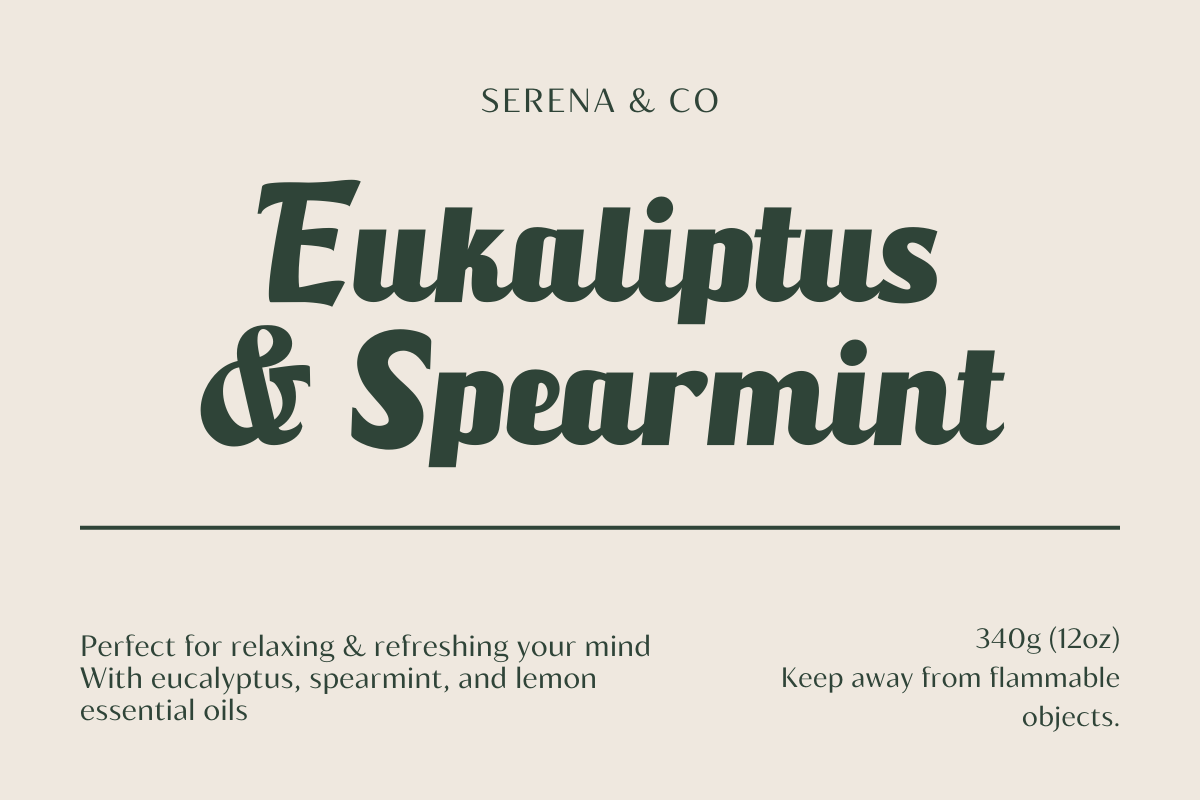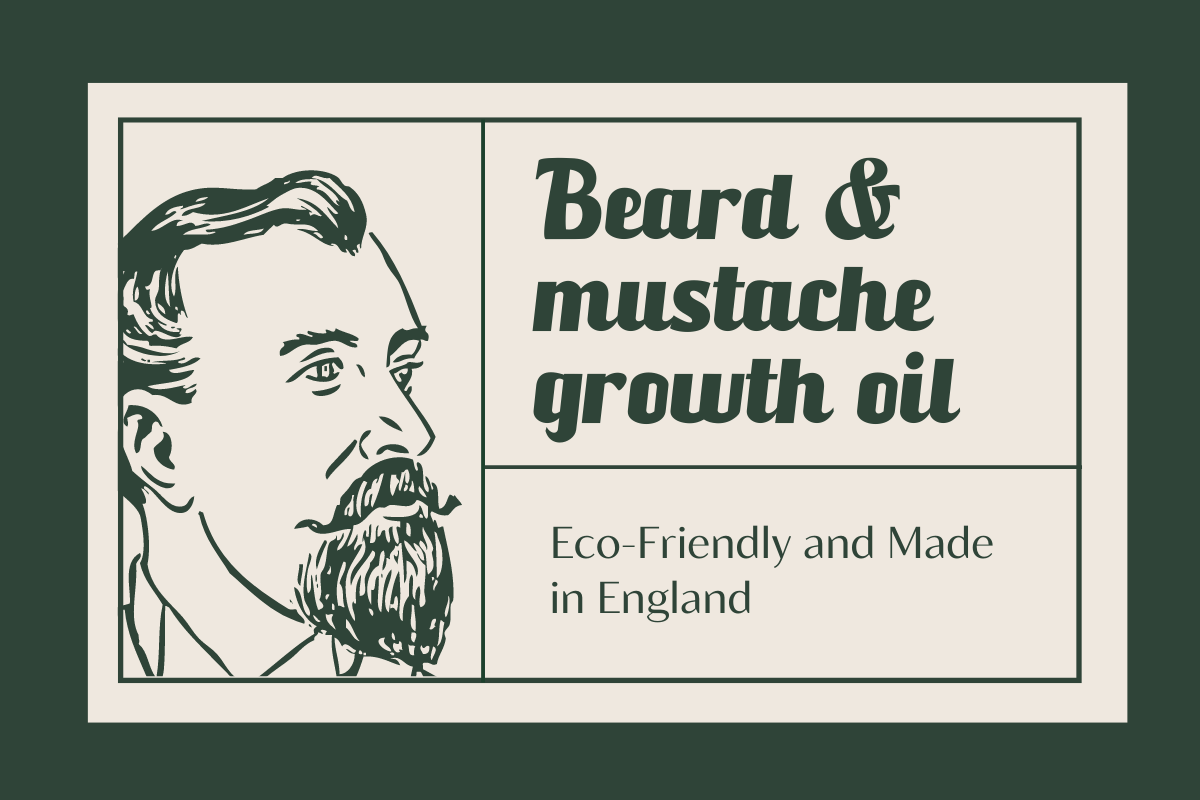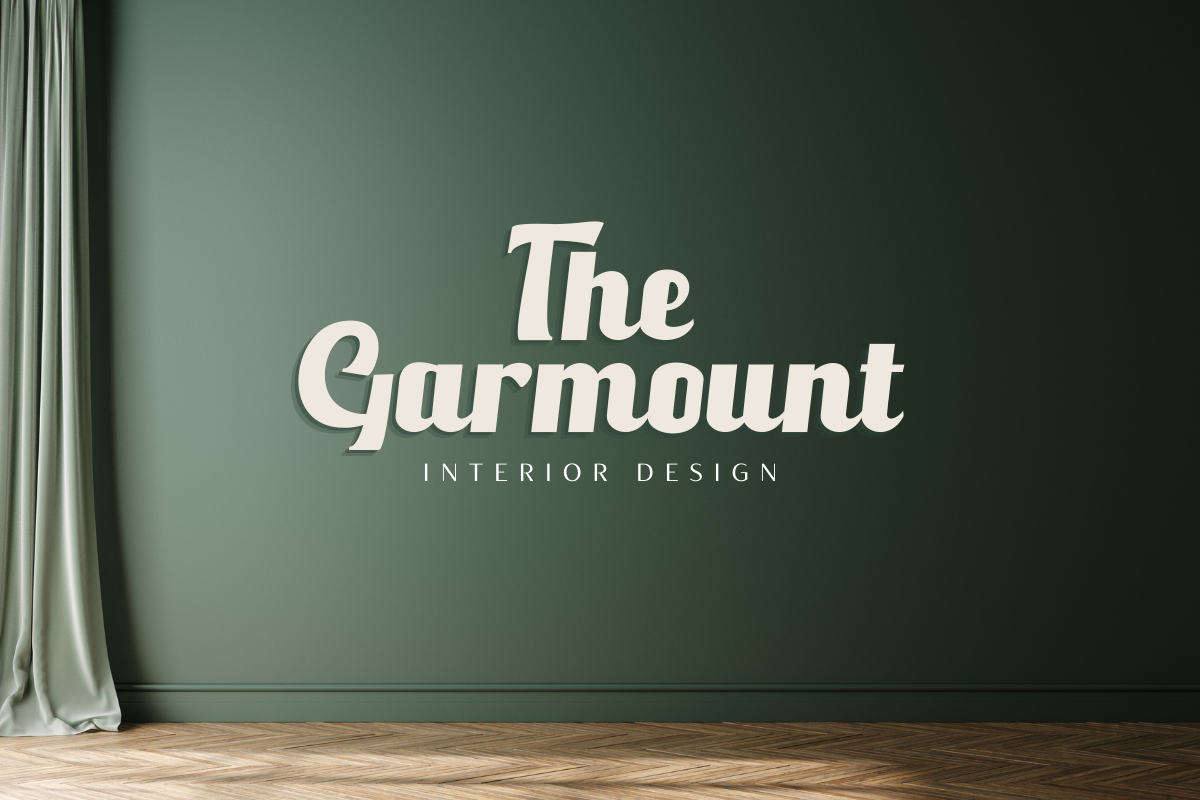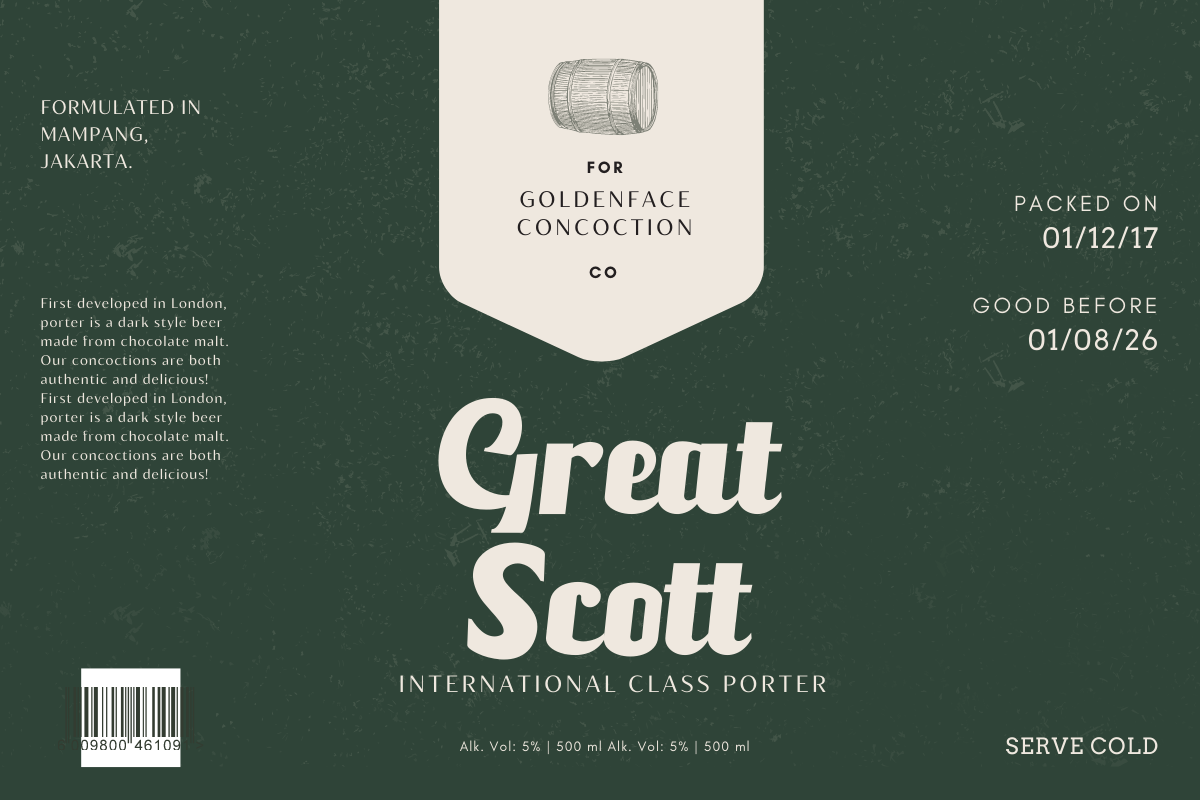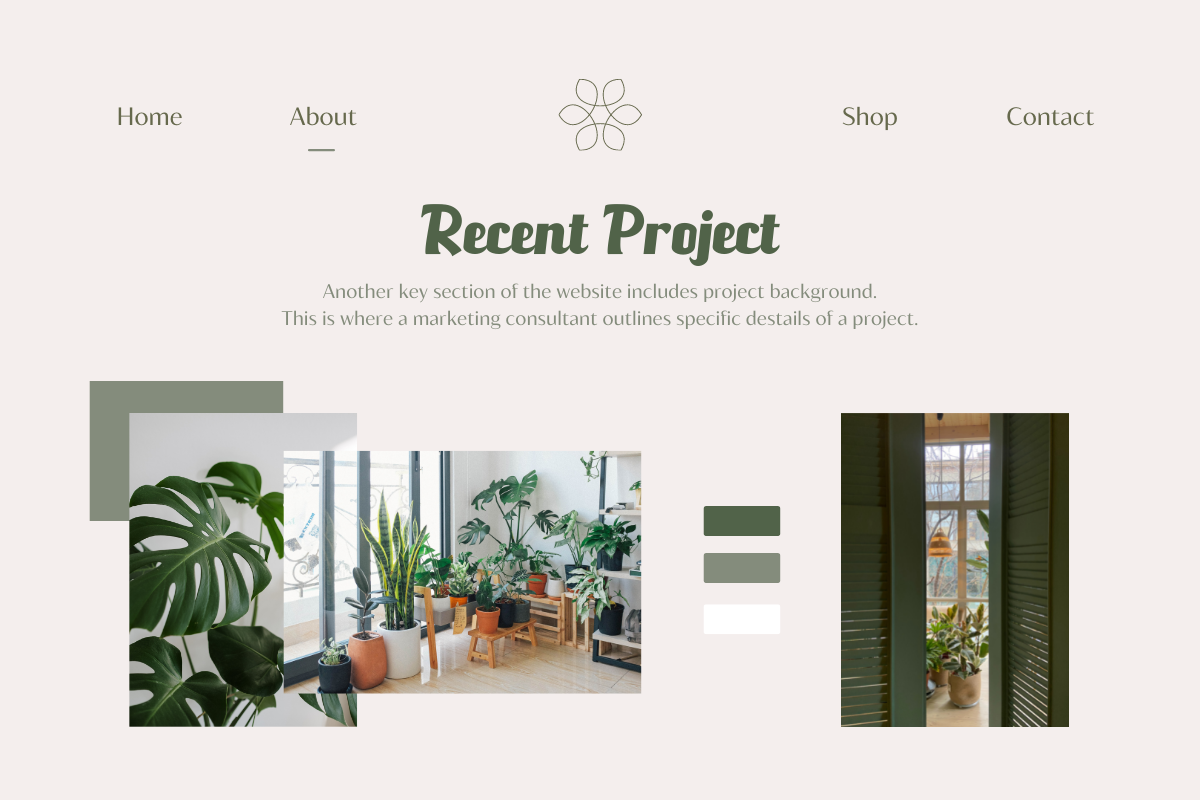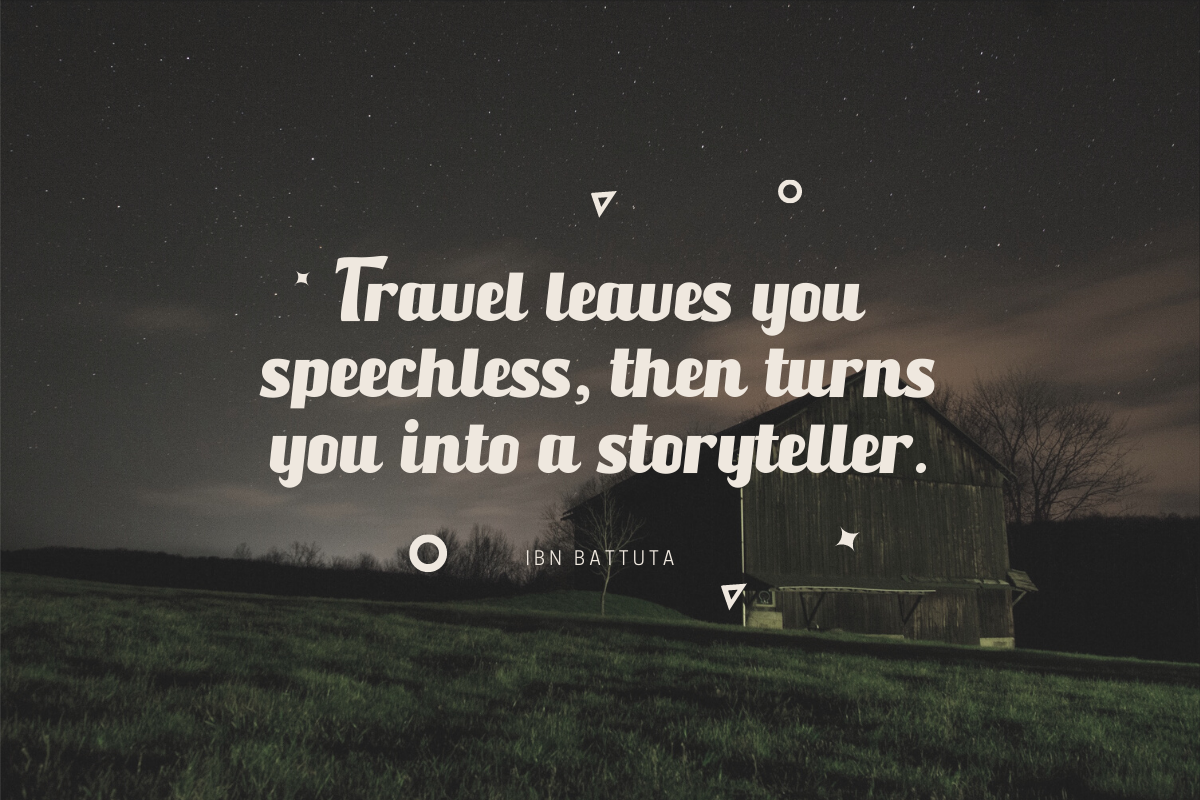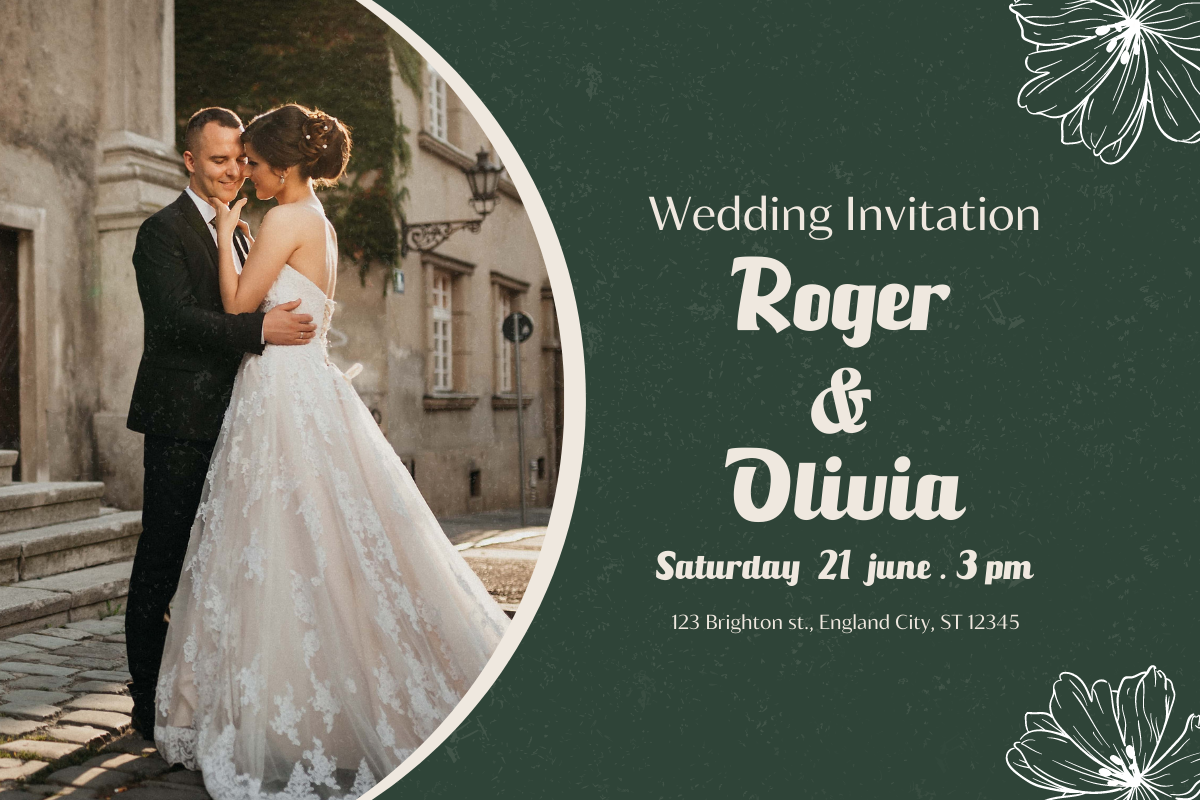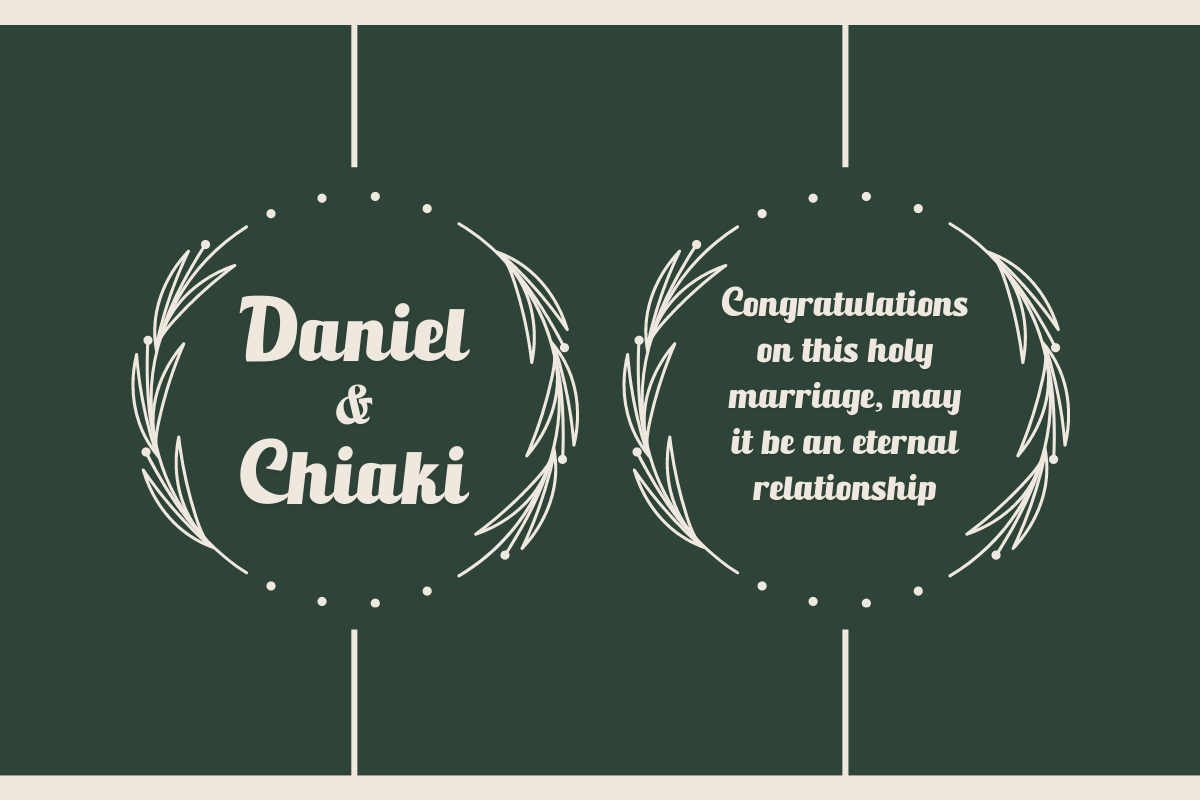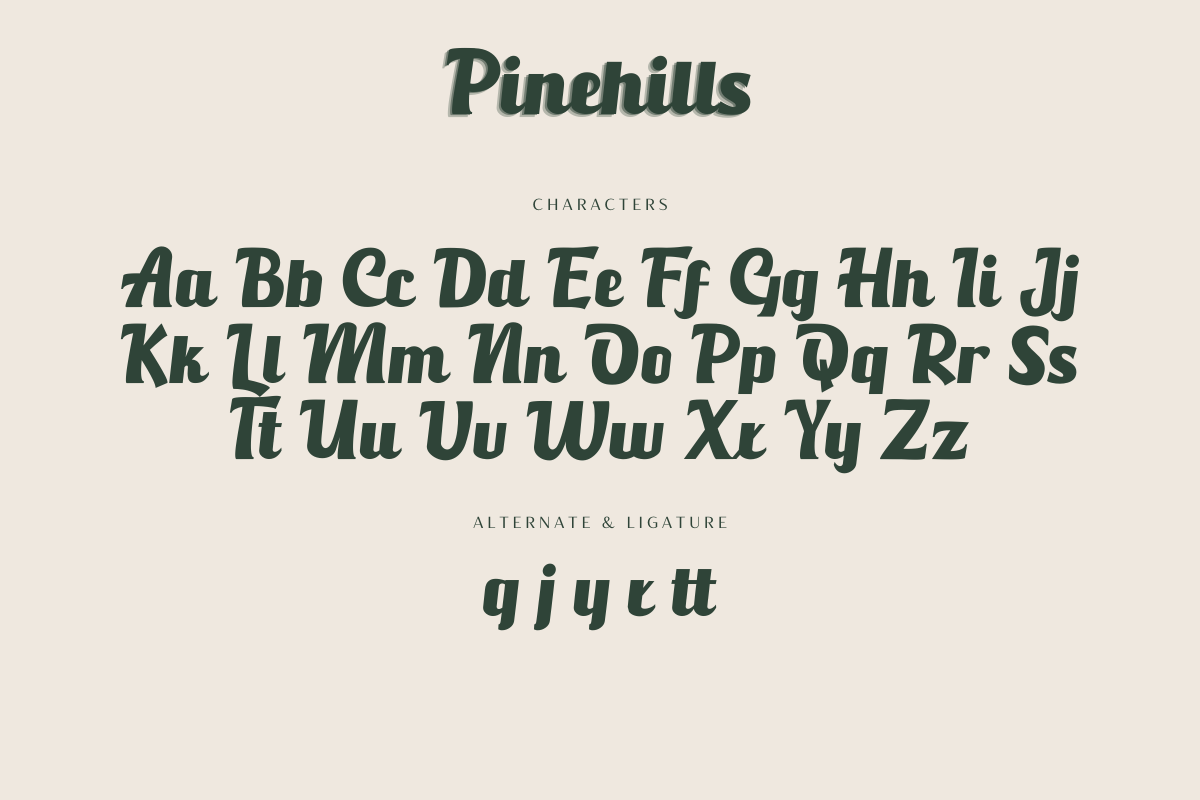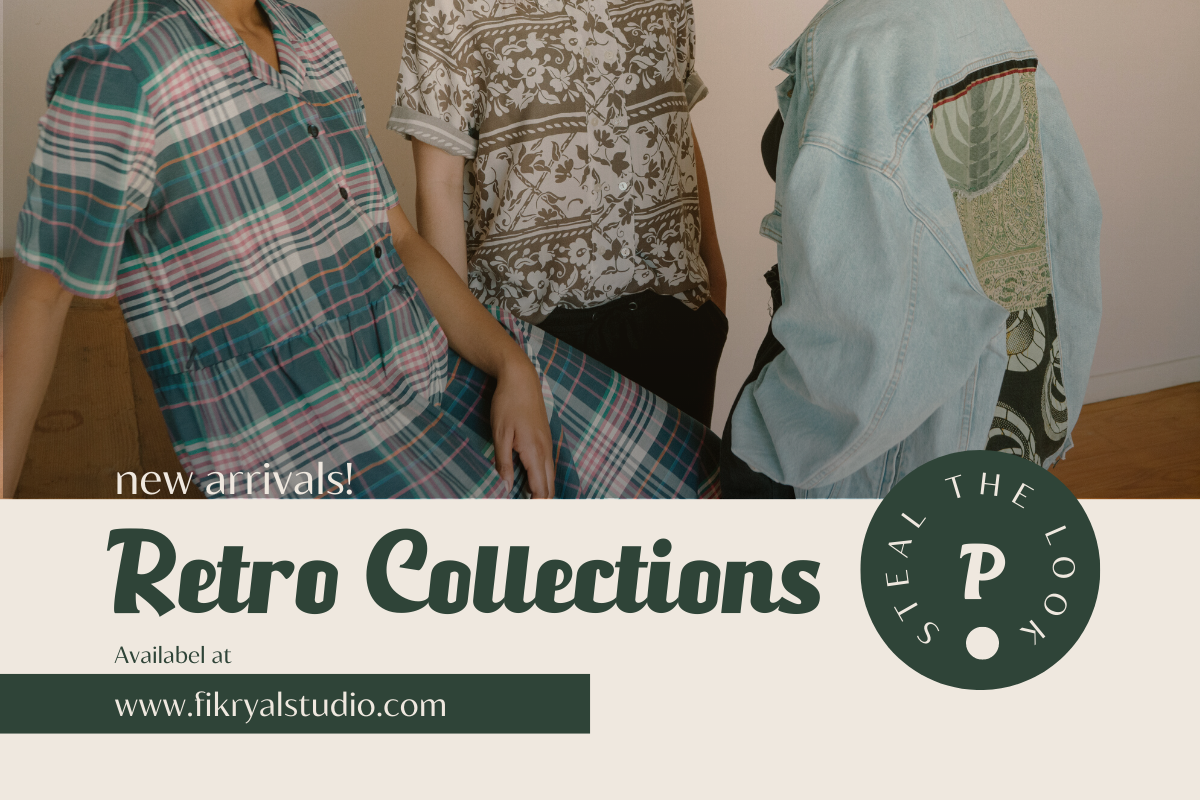
Pinehills – An Classical Script Font
Pinehills – Font is a classical script font. With a classic style that can make your design look simple, elegant, and also bold, this font it’s perfect for logo, branding, title, social media posts, advertisements, product packaging, product designs, label, photography, watermark, special event, magazine, web design, vintage design, etc.
Pinehills( Uppercase, Lowercase )
Stylistic alternate